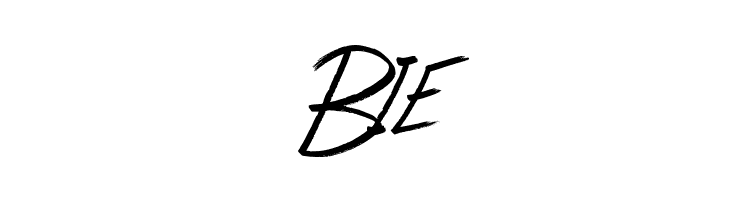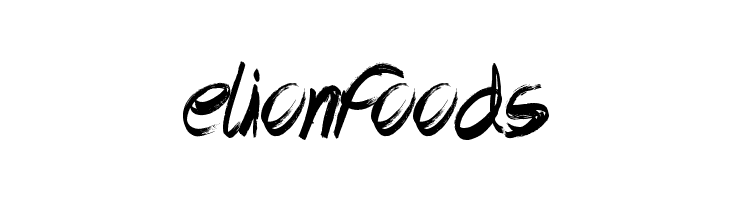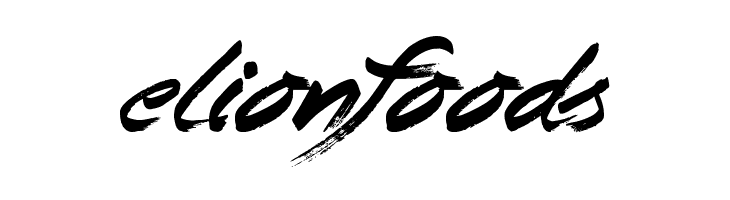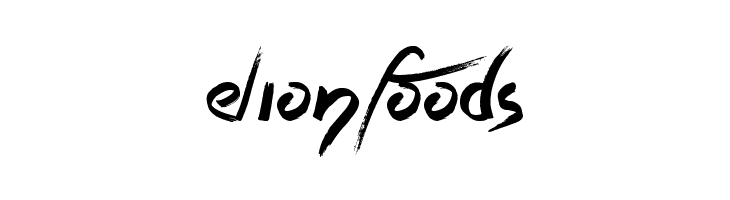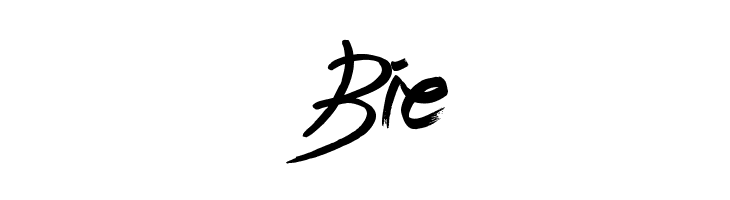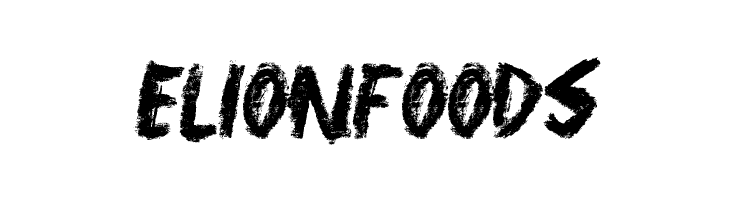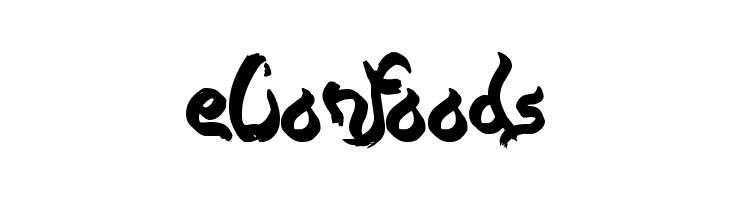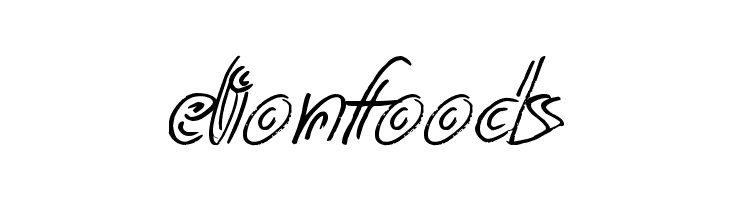
• Be There Soon
A bold, brush-style font with dynamic and expressive strokes.
• xxx Dirty Jokes xxx
A bold, expressive brush-style font with a textured, hand-painted look.
• Lovely Excuse
A bold, expressive brush script font with dynamic strokes and artistic flair.
• Beginning Yoga
A dynamic, brush-style font with expressive, hand-drawn strokes.
• Hard Fox
A bold, brush-style font with dynamic and artistic strokes.
• Quite Chocolatey
A dynamic, brush-style font with expressive strokes and fluid motion.
• Leap of Faith
A dynamic, brush-stroke font with expressive and artistic flair.
• Harris Wear
A bold, brush-textured font with expressive uppercase and lowercase letters.
• The Boatman
A bold, brush-style font with dynamic, hand-drawn characters.
• Potted Balls
A dynamic, brush-like font with sharp, angular strokes and an artistic flair.